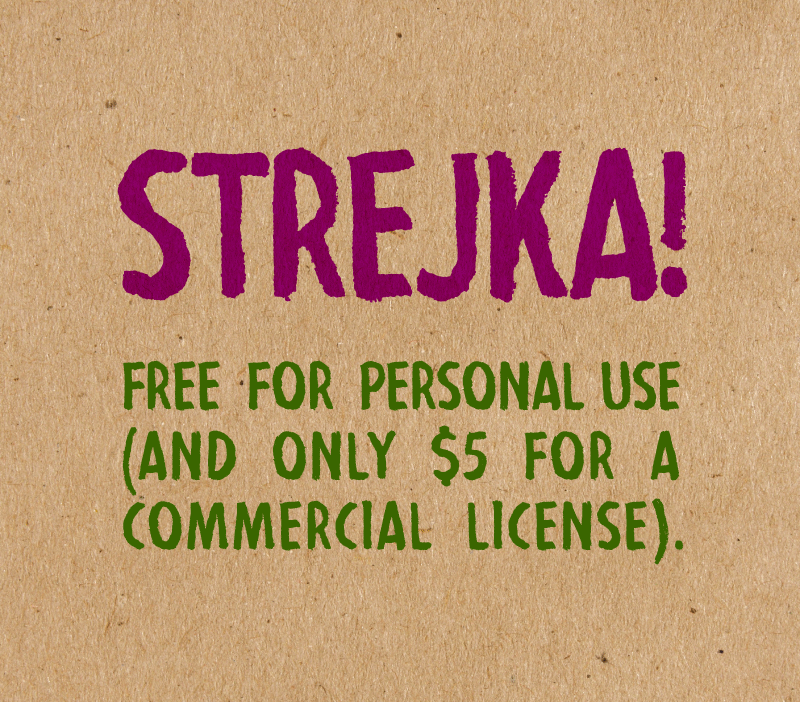
A fresh uppercase typeface for strike placards, organic budget packaging and anything else that needs a firm handrawn font. If you donate $5 or more you get a basic commercial license for 1-5 users, and if the font is made into a PRO version later on then you get a copy of that, free of extra charge. Thanks for you support! |